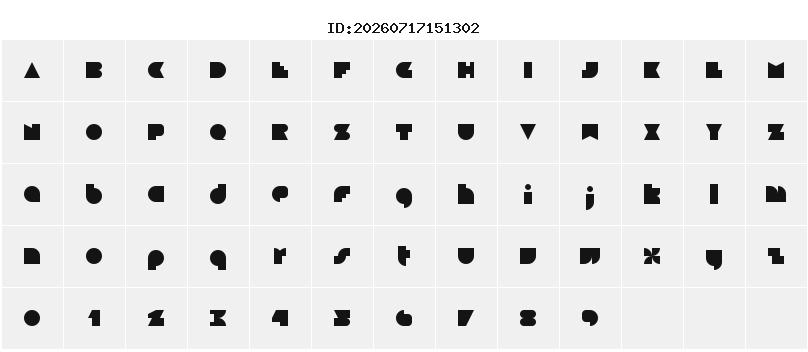
• Font Name: Blackfoot
• Font ID: FontStruct Blackfoot
• Full Font Name: Blackfoot Regular
• PostScript Name: Blackfoot
• Character Count: 179
• Copyright: Copyright Jamie Place 2013
• Designer: Jamie Place
• Description: ‚ÄúBlackfoot‚Äù was built with FontStruct
Blackfoot.ttf is a modern, elegant sans-serif font designed for ultimate readability and visual harmony. Perfect for branding, headlines, web design, and print materials.